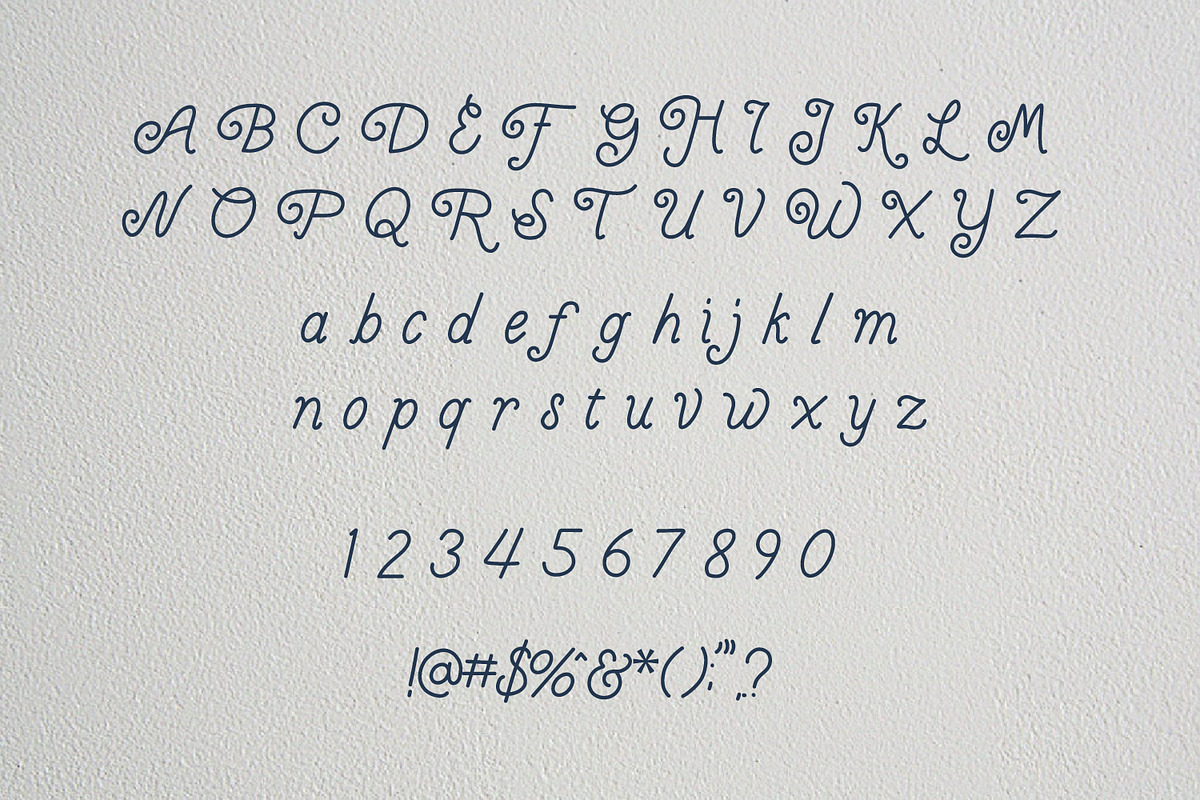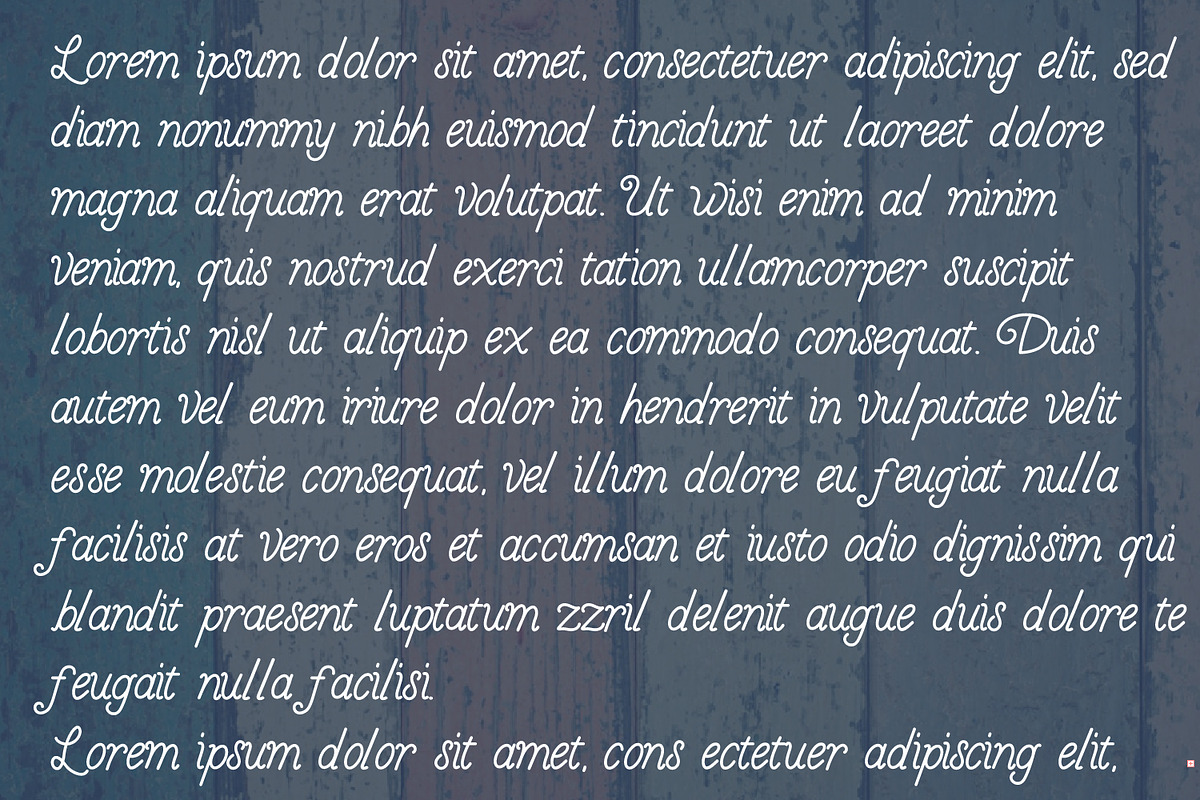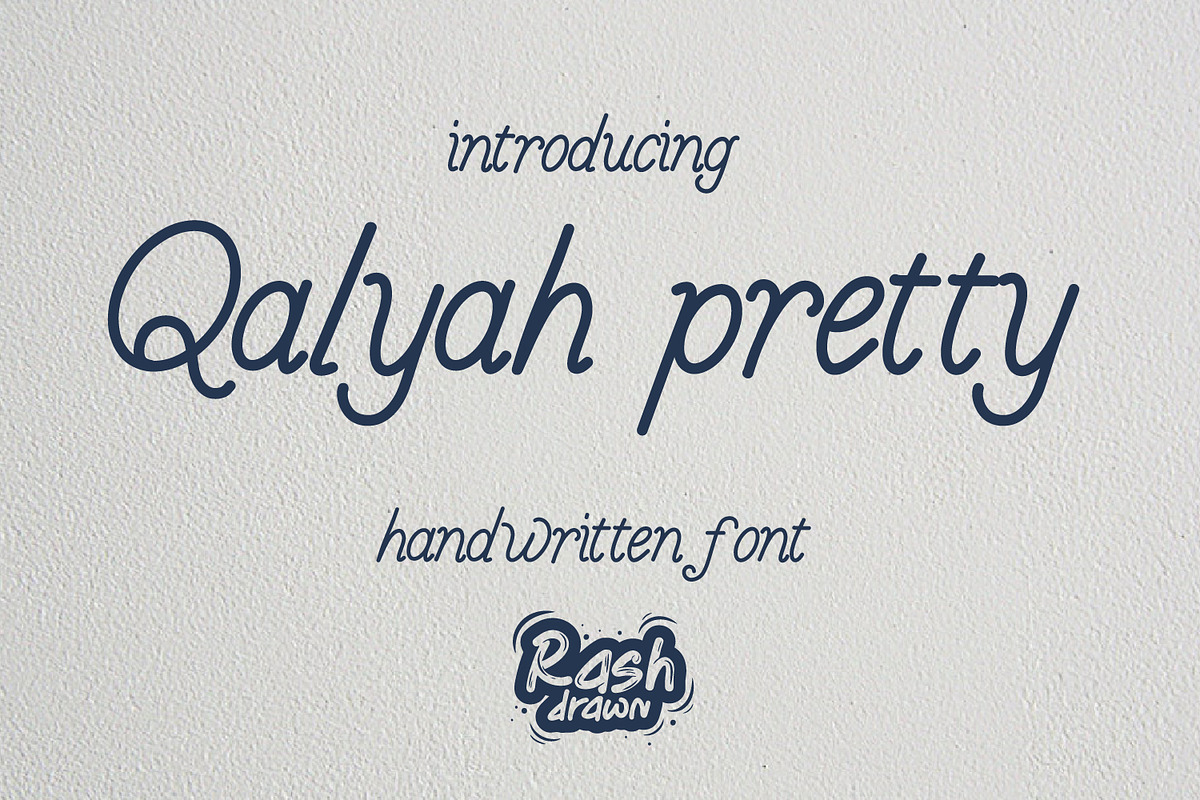
Qalyah pretty
Qalyah pretty is a handwritten font. This font will make your designs look exclusive and authentic. It offers support for all English characters, some characters in multiple languages and standard punctuation marks are included too.